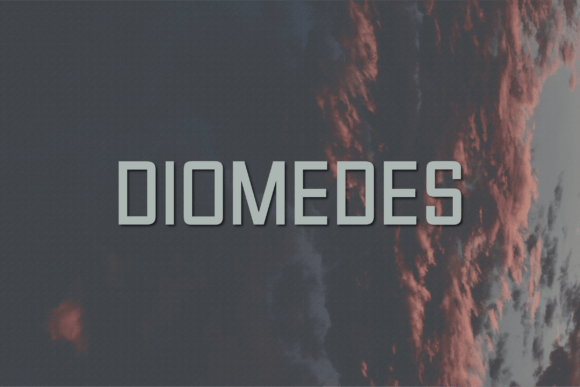
Introduction to Diomedes Font
Meet Diomedes, the epitome of modern elegance in the form of a sans serif typeface.
This contemporary marvel incorporates uppercase characters, numerals from 0 to 9, and an array of punctuation marks and symbols The true strength of Diomedes lies in its versatility, making it an ideal choice for diverse applications ranging from captivating logos and wedding invitations to inspiring quotes and eye-catching advertisements.
Key Features of Diomedes Font
Why Choose Diomedes Font?
Diomedes Font offers exceptional quality and versatility, making it a valuable addition to your design toolkit. Whether you’re creating for personal projects or commercial use, Diomedes Font delivers professional results.